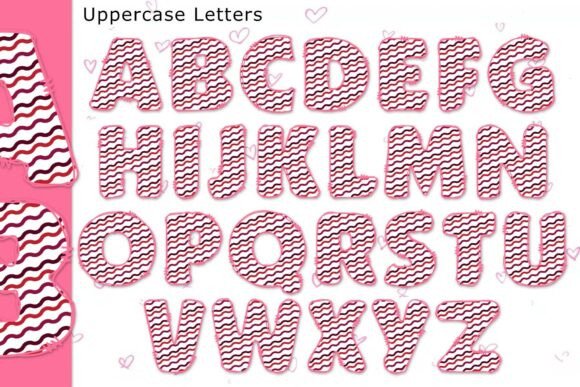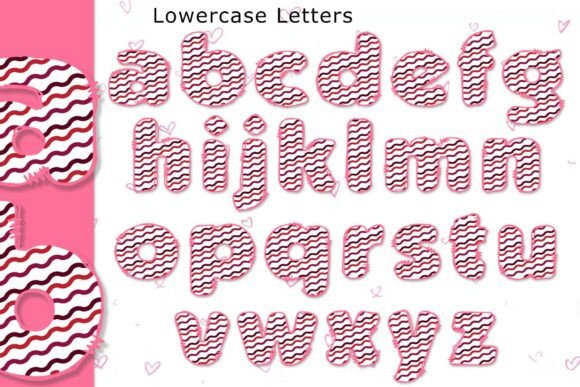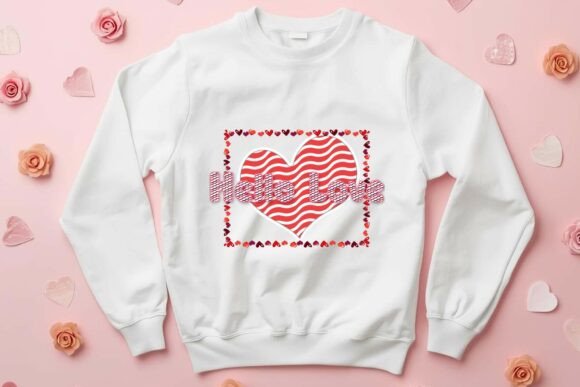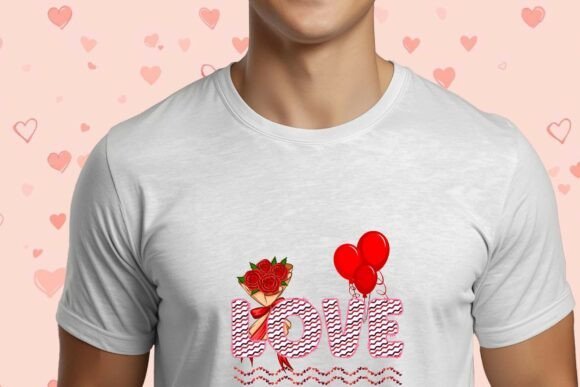
Adding a Touch of Whimsy to Your Designs
Who hasn’t been there – staring blankly at a blank canvas, desperate for inspiration to strike? As a designer, you’re constantly on the lookout for that perfect font to elevate your project and make it truly special. And then, it hits you – the perfect combination of style and personality that captures the essence of your design.
Enter the Candy Wave Stripes Font, a delightful Valentine-themed doodle font that’s sure to bring a smile to your face. This fun and cheerful typeface features playful wavy stripe patterns, soft pink outlines, and a stitched look that’s reminiscent of hand-drawn goodness.
Candy Wave Stripes Font Key Features
- Unique Characteristics: The Candy Wave Stripes Font features a playful, hand-drawn design with wavy stripes, adding a touch of whimsy to any project.
Candy Wave Stripes Font Review
I recently had the chance to work with the “Candy Wave Stripes Font”, and I must say, it’s a unique addition to any design project. ✨ The font’s playful, wavy design makes it perfect for creating eye-catching headings and titles. It’s also highly customizable, allowing you to adjust the wave pattern and color to suit your needs.
One of the things I appreciate about this font is its versatility. ✨ It can be used in a variety of contexts, from children’s books to packaging design. The font is also highly legible, making it easy to read even in smaller sizes.
While the “Candy Wave Stripes Font” has its strengths, there are a few limitations to consider. ⚠️ For one, the font can be overwhelming if used extensively throughout a design. It’s best to use it sparingly to avoid visual overload. Additionally, the font may not be suitable for formal or professional designs, as its playful nature may not be taken seriously.
Overall, I’m impressed with the “Candy Wave Stripes Font”. It’s a fun, creative addition to any design project. While it may have some limitations, its unique design and high customizability make it a great choice for designers looking to add some visual interest to their work.
Key Features
- Unique, playful design
- Highly customizable
- Perfect for children’s books, packaging design, and other playful contexts
- May be overwhelming if used extensively
- Not suitable for formal or professional designs
Candy Wave Stripes Font Practical Application Guide
The Candy Wave Stripes Font is ideal for:
1. Creating playful and whimsical designs.
2. Adding a touch of nostalgia to your designs.
3. Making your text stand out in a crowded design.